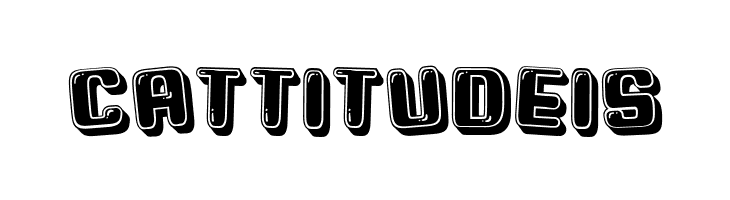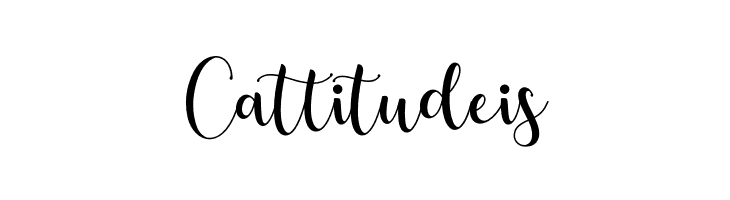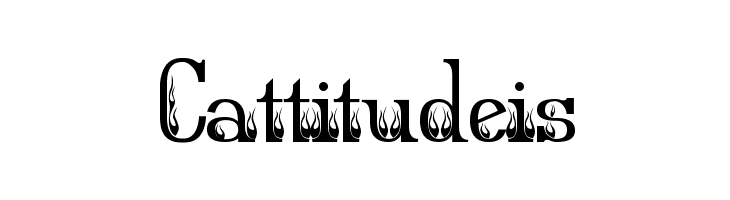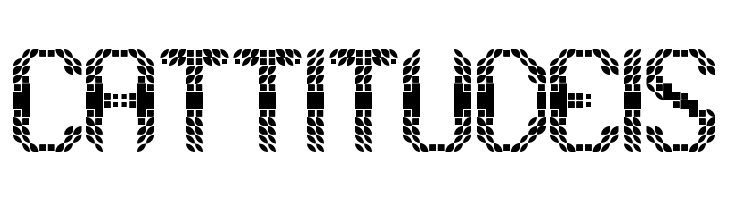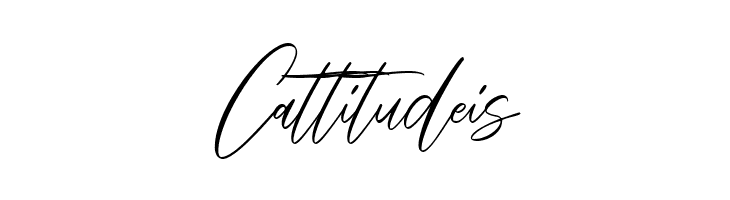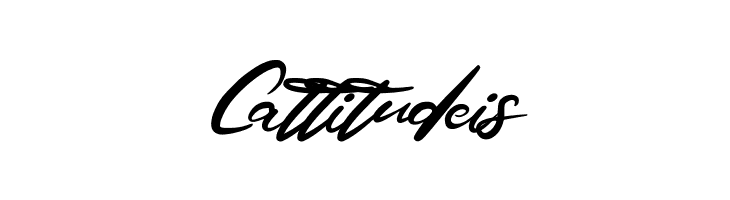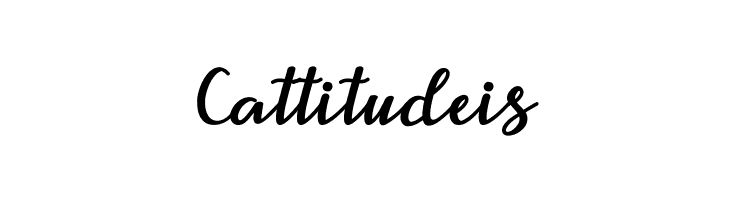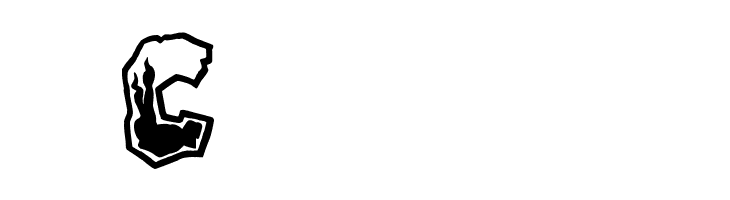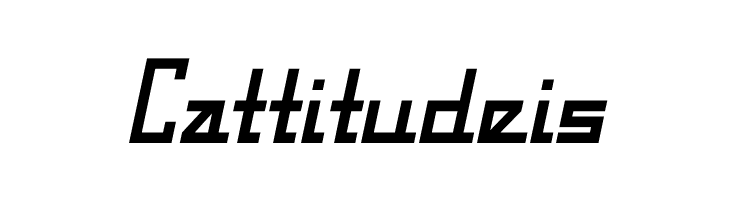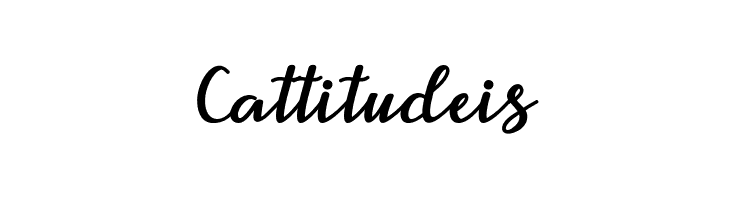
A modern, elegant script font with flowing curves and loops.
An elegant, flowing script font with smooth, cursive strokes and artistic flair.
A flowing cursive font with elegant, connected letters and moderate stroke contrast.
A modern sans-serif font with rounded edges and uniform stroke width.
An elegant, flowing script font with a handwritten appearance.
A flowing, cursive script font with elegant loops and swirls.
A cursive, handwritten font with elegant, flowing strokes.
A playful and energetic handwritten font with fluid strokes.
A playful and energetic handwritten script font with smooth, connected strokes.
A bold, rugged font with jagged edges and a distressed, hand-drawn appearance.
A bold, hand-drawn font with a sketch-like, dynamic style.
A cursive, handwritten font with elegant loops and fluid connections.
A futuristic and geometric font with clean lines and angular shapes.
An elegant script font with flowing lines and high contrast, perfect for sophisticated designs.
A bold, playful font with a 3D effect and rounded, bubble-like characters.
A futuristic, geometric font with rounded edges and a bold style.
A geometric, pixelated font with a futuristic and decorative style.
A dynamic and fluid script font with elegant, flowing curves and a modern touch.
A dynamic and elegant script font with flowing, cursive letterforms.
A dynamic, italic script font with flowing, connected characters.
A bold, outlined font with a modern geometric style.
A bold, flame-themed font with dramatic and energetic design elements.
A bold, geometric font with dynamic and artistic design elements.
A bold, angular, italic font with a modern, geometric style.
A graceful script font with flowing, connected strokes and elegant swashes.
A dynamic and fluid script font with elegant, flowing letterforms.
A modern, angular font with a geometric and dynamic style.
A playful, elegant script font with a handwritten style.
A lively and flowing script font with elegant, playful characteristics.
A dynamic and playful script font with a handwritten style.
A dynamic and elegant script font with fluid, connected letterforms.
Casual handwritten script with rounded, playful strokes.
A bold, handwritten font with a dynamic and expressive style.
A dynamic, cursive font with fluid, connected strokes and a modern, artistic style.
An elegant script font with decorative swirls and a sophisticated style.